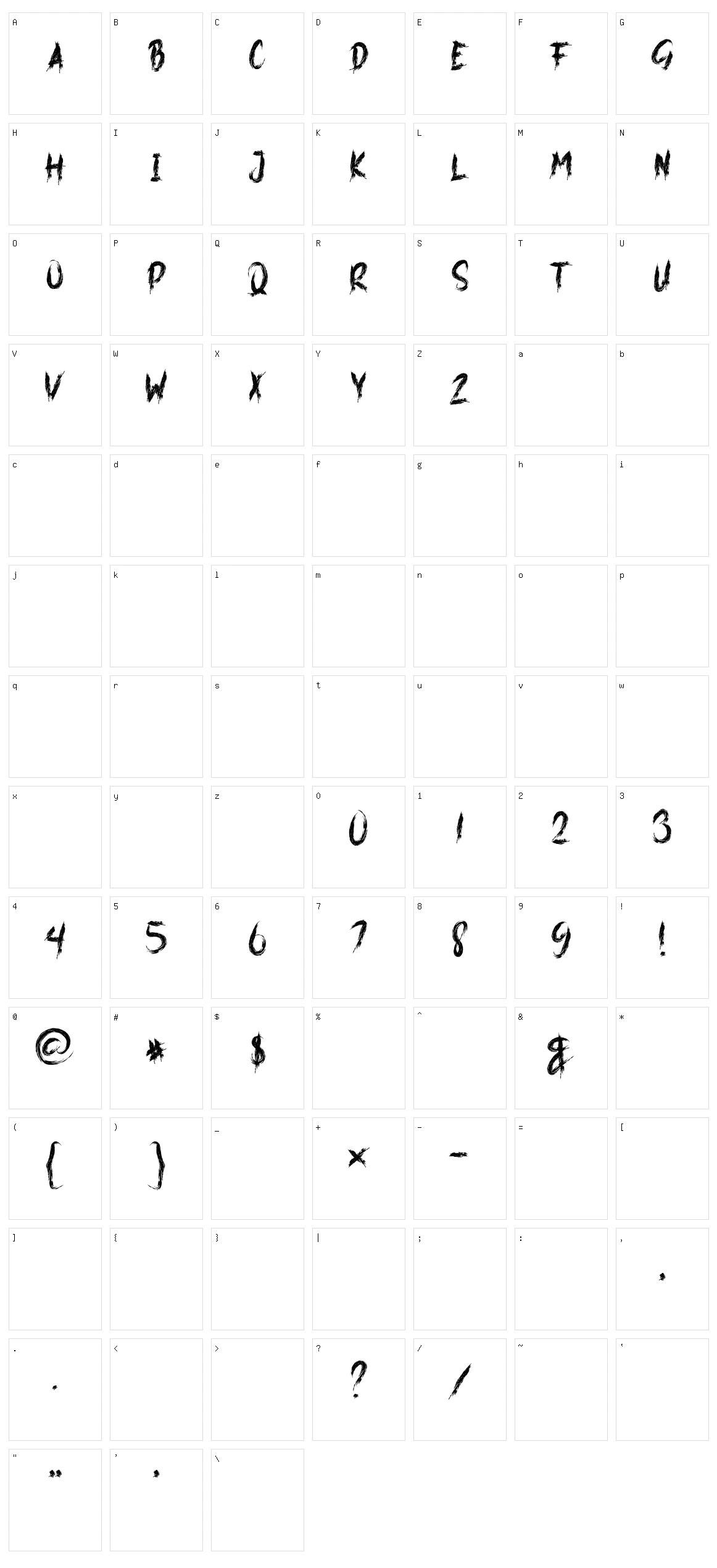
The free font Covid Virus is carefully designed by AminMario, showcasing a thoughtful balance of creativity and usability and falls under the Horror font style. When you download the ZIP file, it contains only 166.92 KB of font files, making it lightweight and quick to download. Please review the license details below to understand permitted usage and distribution rights. If license information is not available, we recommend using this font for personal projects only or contacting the author directly for commercial usage permissions.